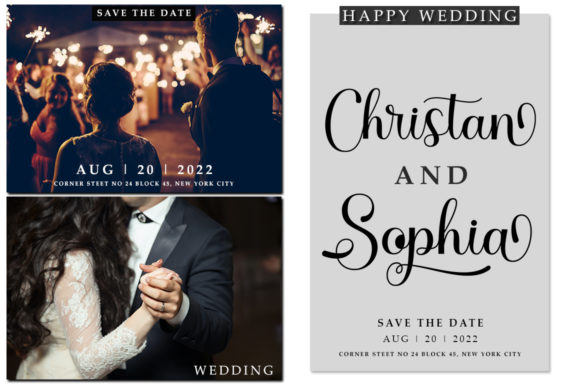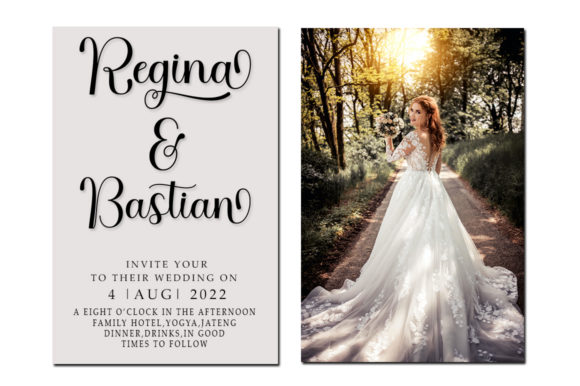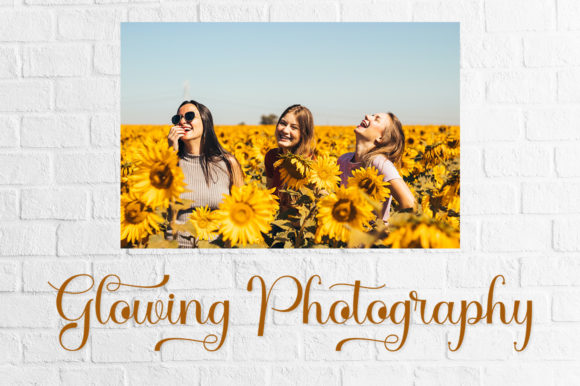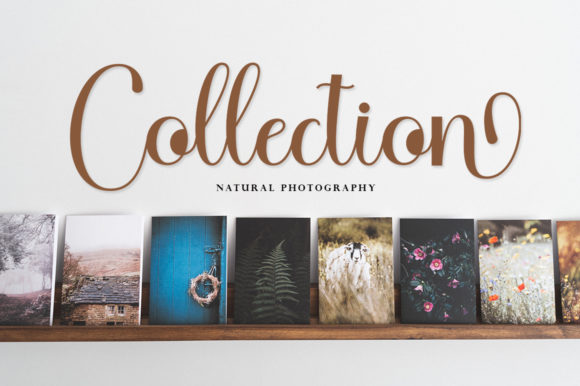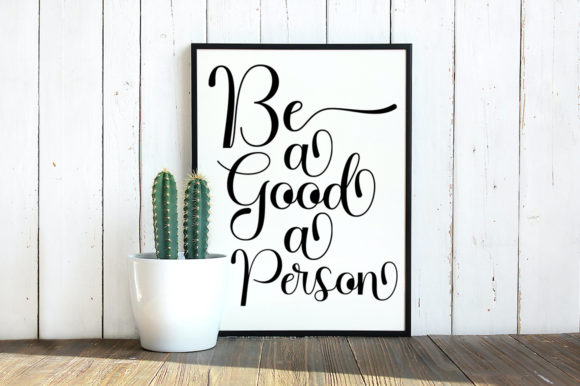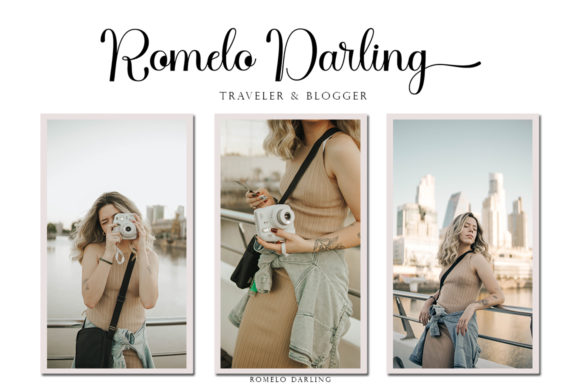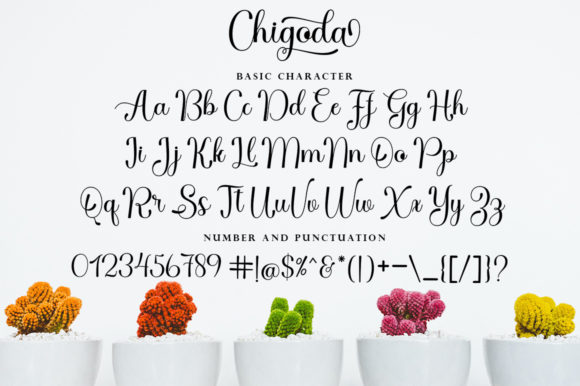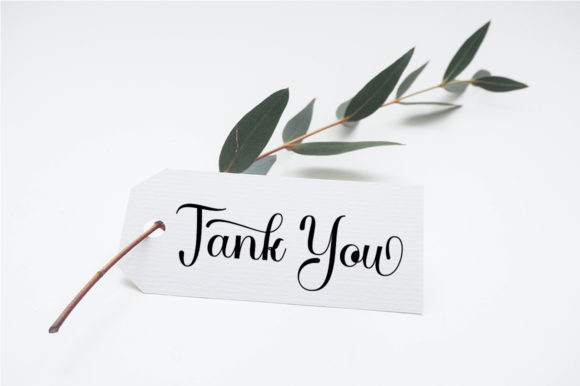
Chigoda Font
About Chigoda Font
Chigoda is a fine and dazzling script font that exudes elegance and sophistication. With its beautiful and well-crafted characters, this font adds a touch of charm to any design. Whether you’re working on formal or informal projects, Chigoda is a versatile choice that can be used in a variety of contexts.
The PUA encoding of Chigoda allows for easy access to its wide range of glyphs and swashes. This means you can effortlessly customize your text and add decorative elements to enhance your design. Whether you need elegant flourishes, stylish ligatures, or unique letter variations, Chigoda provides the flexibility to create visually stunning and personalized typography.
Chigoda is suitable for a wide range of purposes, thanks to its versatility. It can be used for formal applications such as wedding invitations, business cards, and corporate branding. The font’s refined and dazzling style adds a touch of sophistication and elegance to these projects, making a lasting impression on the viewer.
For more informal designs, Chigoda brings a sense of playfulness and grace. It works well for greeting cards, quotes, social media posts, and other creative endeavors that require a touch of elegance. The font’s fine and dazzling appearance adds a special flair to these designs, making them stand out and catch the eye.
No matter the purpose, Chigoda offers a wide range of possibilities. Its flexibility and versatility make it a go-to choice for designers who seek a font that can adapt to various projects. With Chigoda, you can achieve a fine and dazzling look that elevates your design and captures the attention of your audience.
In conclusion, Chigoda is a fine and dazzling script font that adds elegance and charm to any design. Its PUA encoding allows for easy access to a variety of glyphs and swashes, giving you the freedom to customize and enhance your typography. Whether you’re working on formal or informal projects, Chigoda brings a touch of sophistication and versatility, making it suitable for a wide range of purposes.